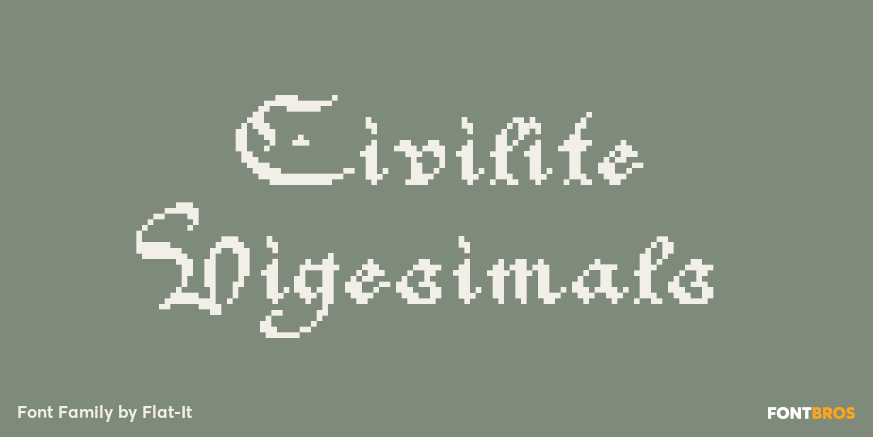
Civilite Vigesimals
About Civilite Vigesimals
This 8-bit pixel font is designed with respect for 80s game designers and the pixel font pioneers in middle 90s. Ues at size 20 pixels or multiples of 20 and anti-alias off is recommended.